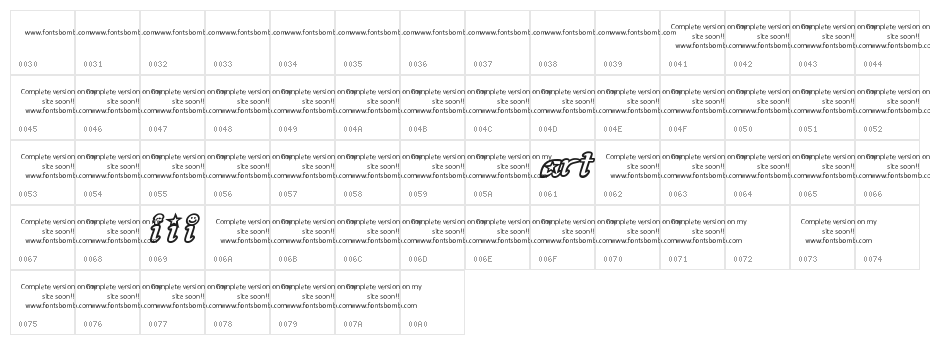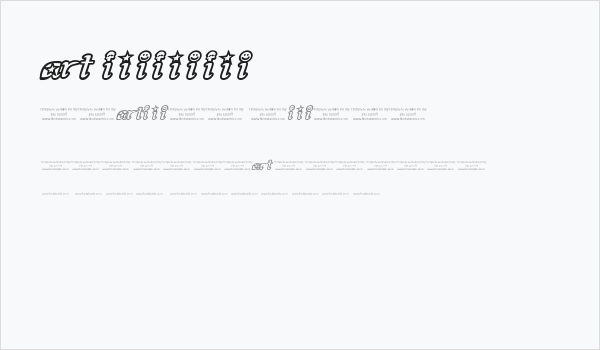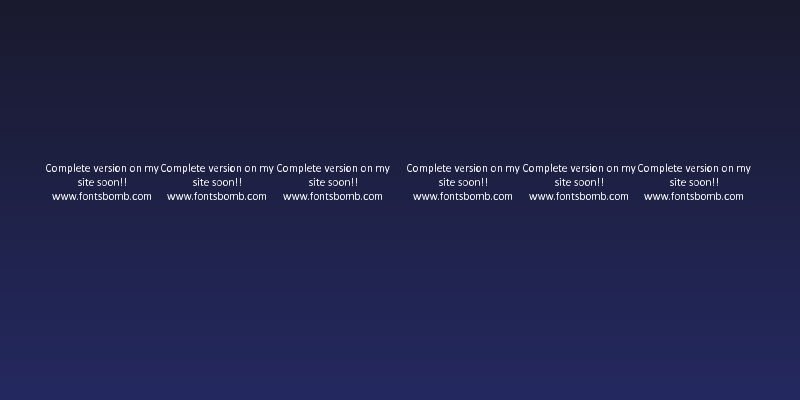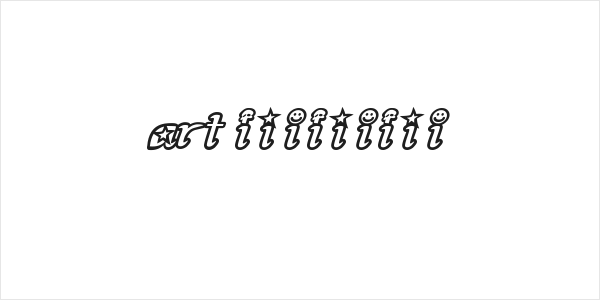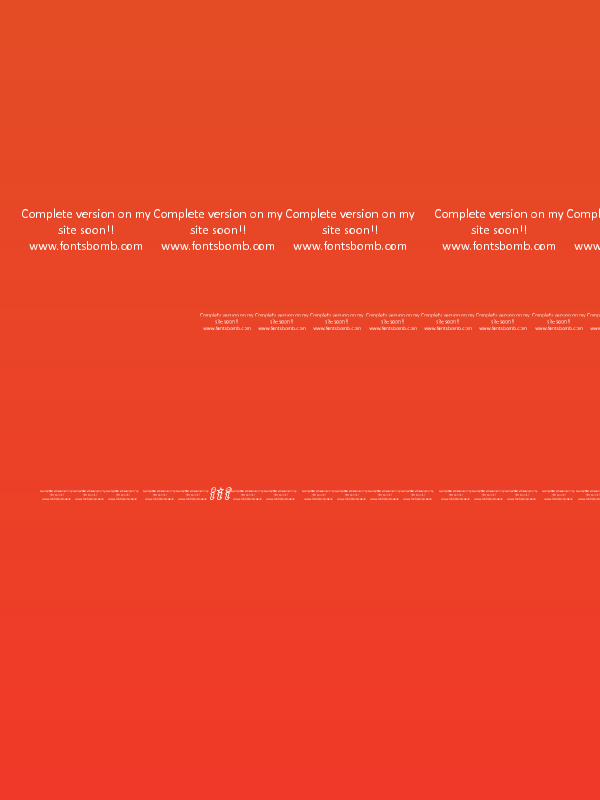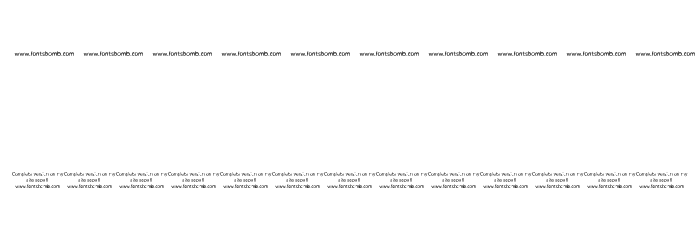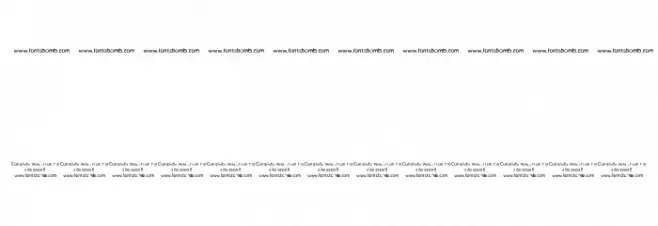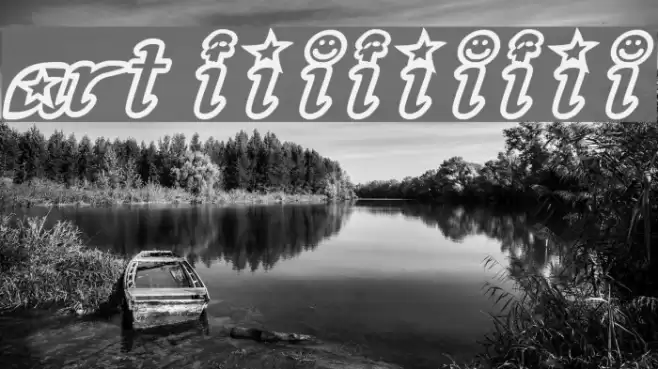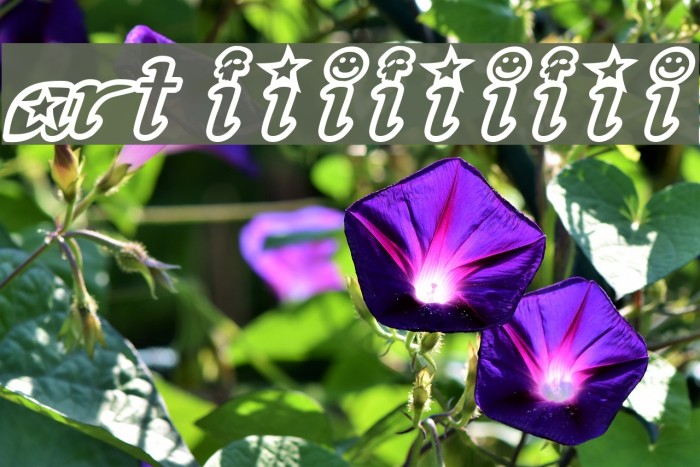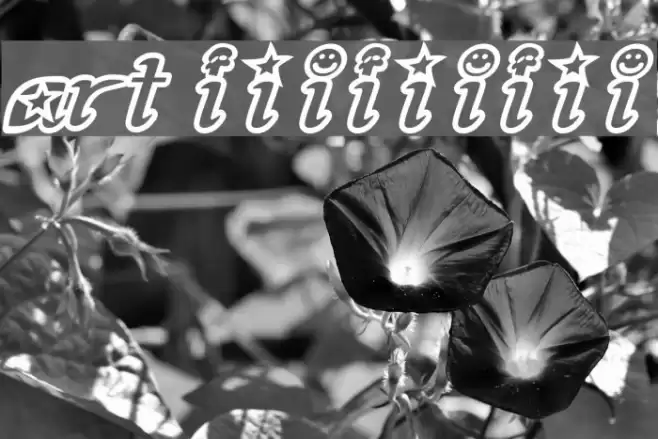
art iii Font
art iii Description
This font features a playful and artistic design, characterized by its whimsical and hand-drawn appearance. The letters have a unique, irregular shape that gives them a lively and dynamic feel. Each character seems to have been crafted with a sense of fun and creativity, making it ideal for projects that require a touch of personality and flair. The font's style is reminiscent of doodles or sketches, with a casual and informal vibe. It is perfect for use in creative projects, children's books, or any design that aims to convey a sense of joy and spontaneity. The font's distinctive style makes it stand out, ensuring that any text set in this typeface will capture attention and evoke a sense of playfulness.
| Use Case | Headlines, Logos, Creative projects |
| Proposed Projects | Ideal for children's books, creative projects, playful branding, and artistic designs. |